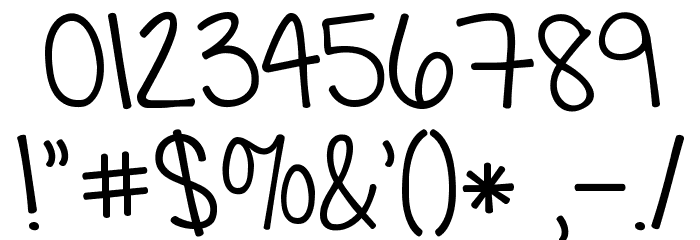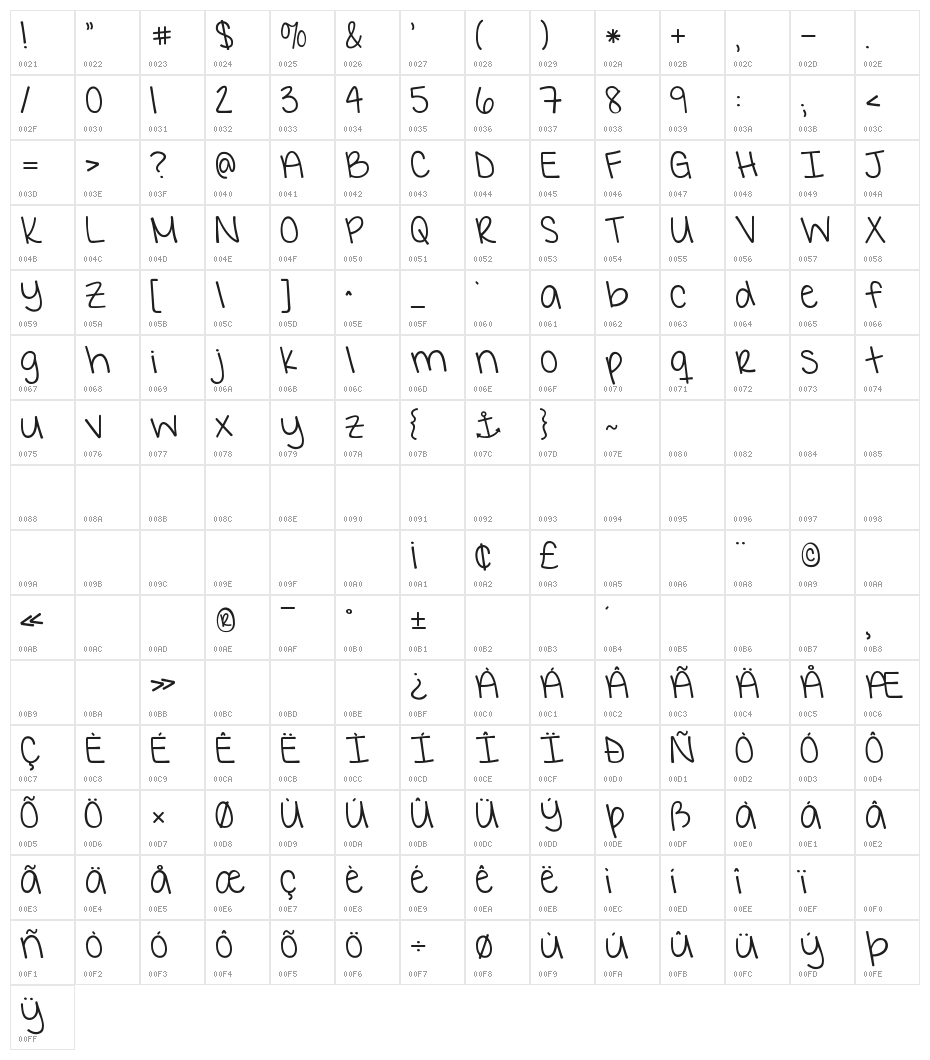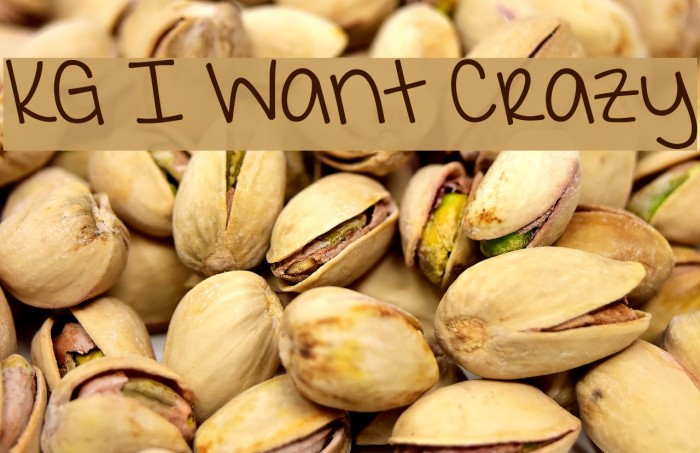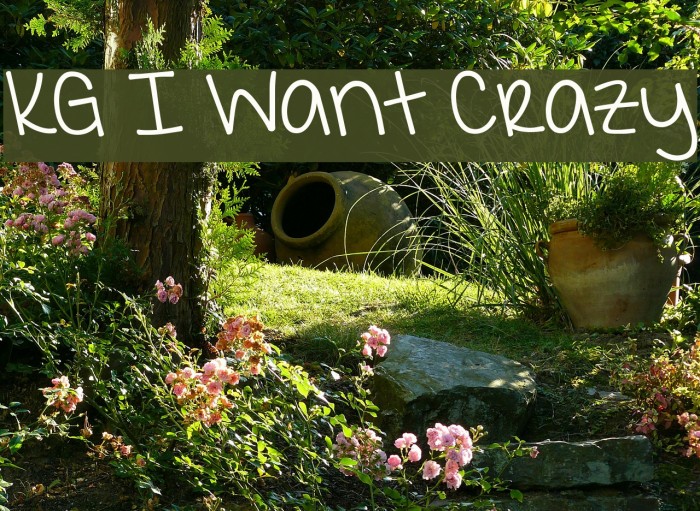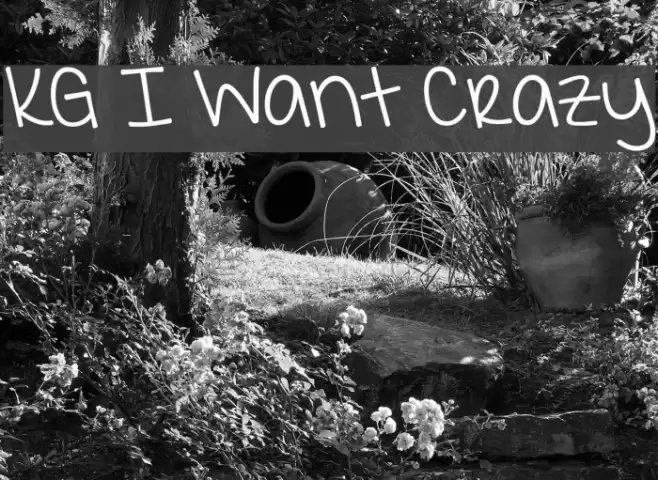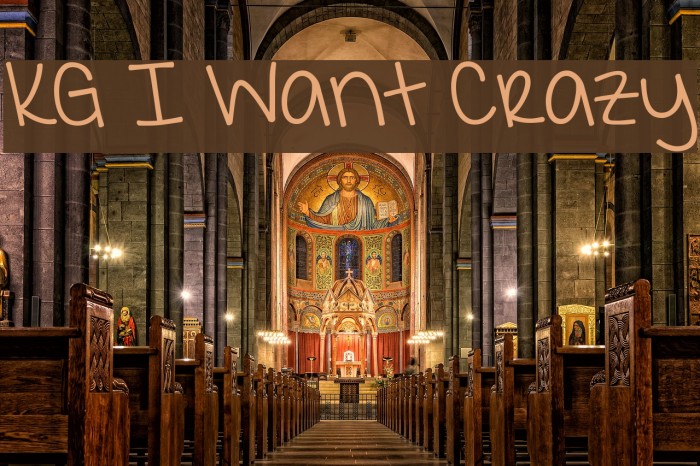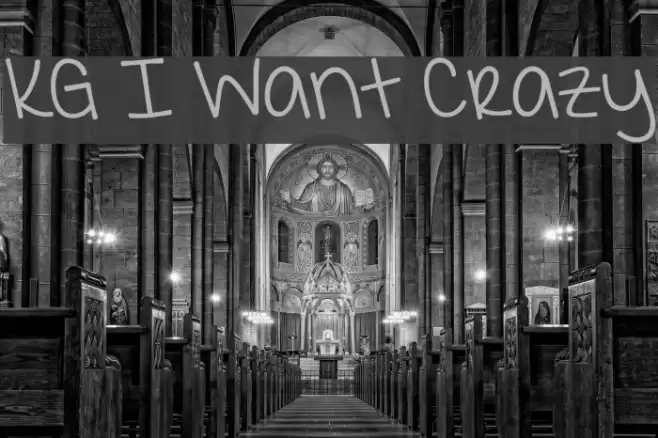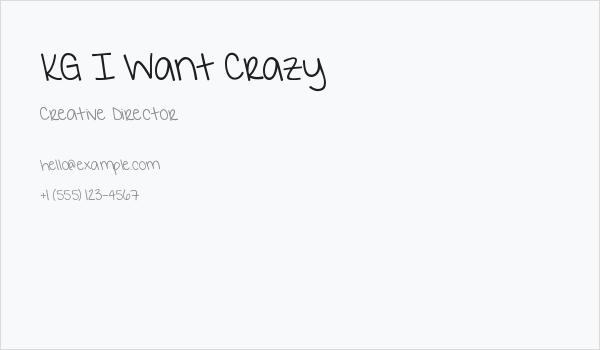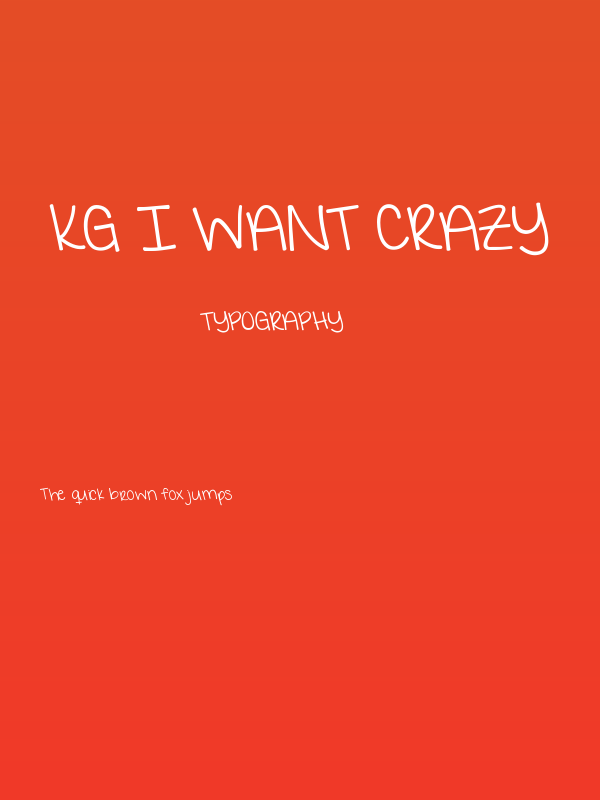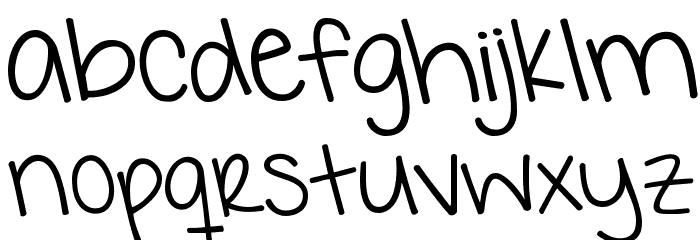
KG I Want Crazy Font
KG I Want Crazy Description
This playful and whimsical font features a handwritten style with smooth, rounded edges and a casual, friendly appearance. The characters are slightly irregular, adding to the informal and approachable feel. The uppercase and lowercase letters maintain a consistent flow, while the numerals and special characters complement the overall aesthetic. The font's simplicity and charm make it suitable for projects that require a personal touch or a fun, lighthearted vibe.
| Proposed Projects | Ideal for children's books, greeting cards, playful branding, and informal invitations. |